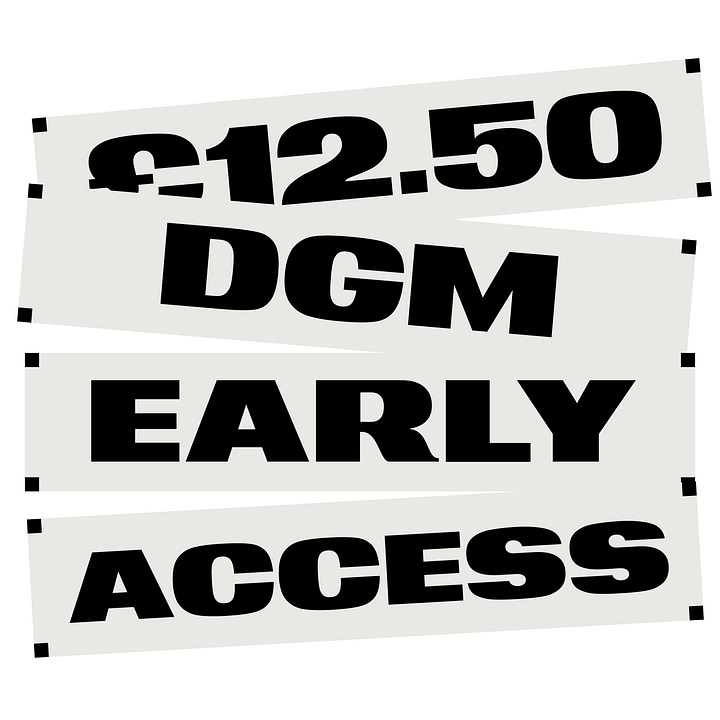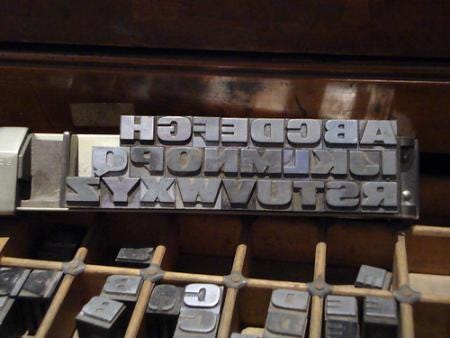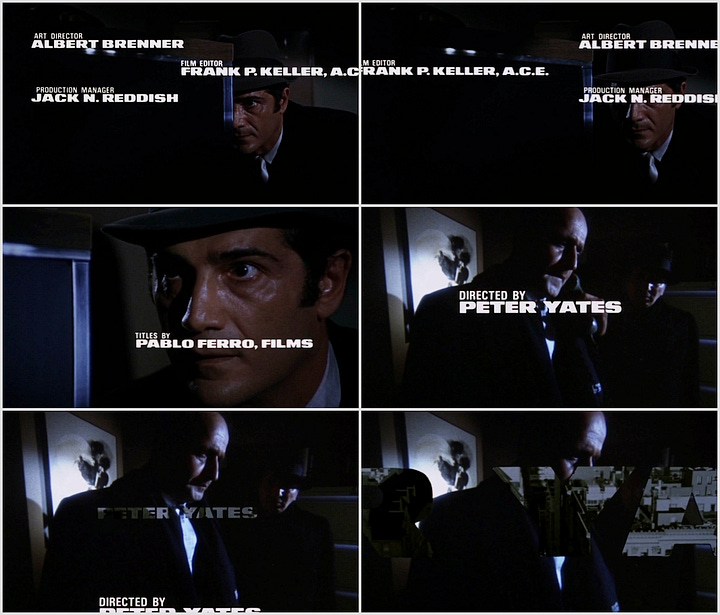
DGM Fette is a semi revival of Breite Fette Information, originally designed by Friedrich Karl Sallwey and cast by Klingspor in the late 1950s as an addition to the Information family.
It is probably best known today from its use in Pablo Ferro’s title sequence for “Bullitt” and The Kinks’ – Kinkdom artwork.
It’s been a joy and a pain to play with and build, finding the balance between respecting the original letterforms and injecting my own vision and personality into it.
Because I can’t just do one easy thing ever, as soon as I finished working on Latin, I decided to go in and add both Cyrillic and Greek to it. With the kind and generous help and aye of a few fellow designers, I am pretty happy to introduce